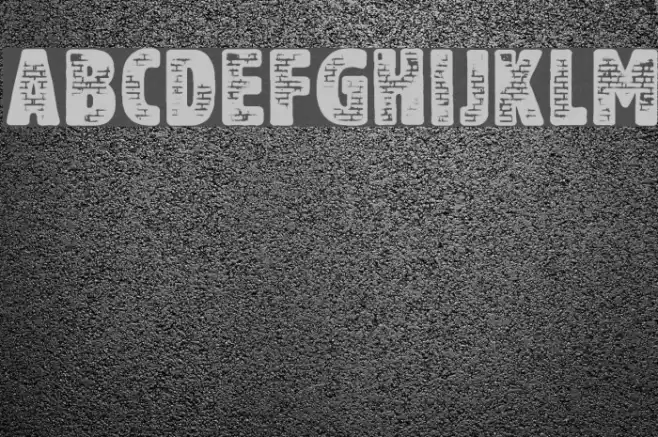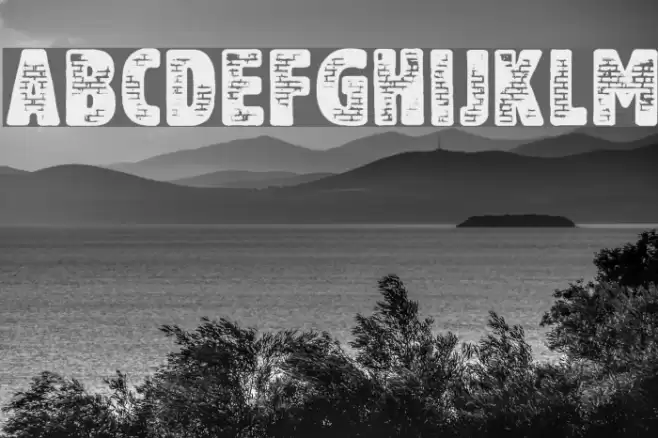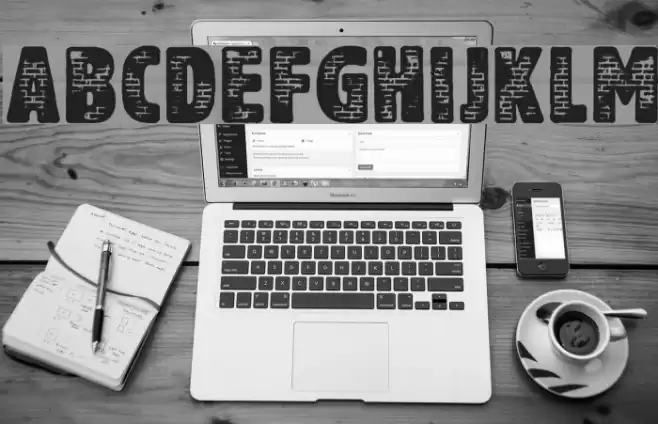
Another Brick Font
Another Brick Description
This font features a bold, textured design that mimics the appearance of bricks. Each character is filled with a pattern that resembles a brick wall, giving it a rugged and industrial feel. The letters are uppercase and have a strong, sturdy presence, making them ideal for impactful designs. The numbers and special characters follow the same brick pattern, ensuring consistency across all elements. This font is perfect for projects that require a gritty, urban aesthetic, such as posters, album covers, or branding for construction-related businesses.
A bold, textured font with a brick wall pattern, ideal for urban-themed designs from Uncategorized fonts.
- Font: Another Brick
- Proposed Projects: Posters, album covers, construction branding, urban-themed graphics.
- Overall Style: Industrial, Urban